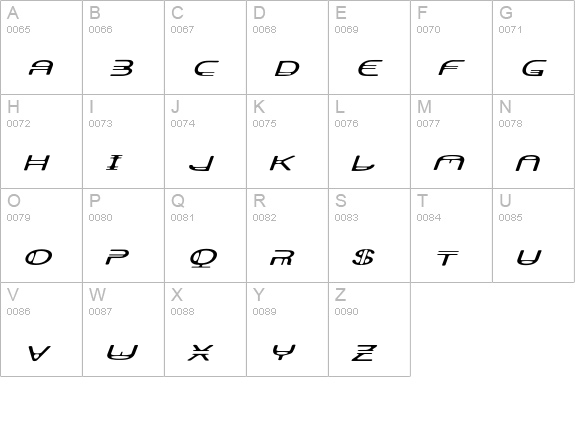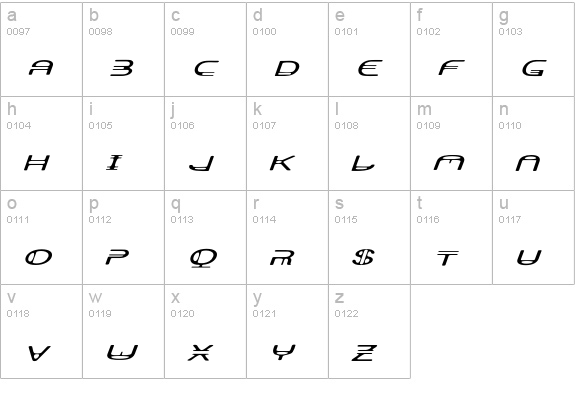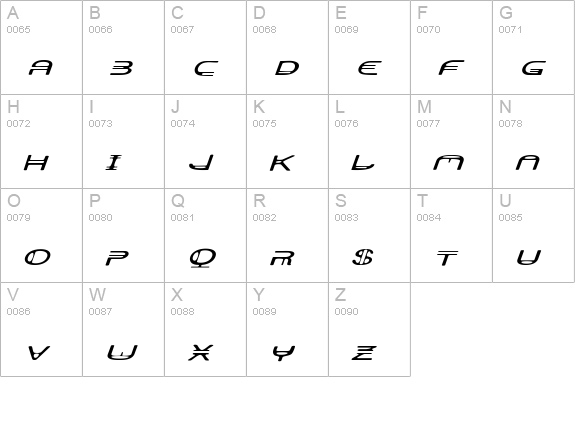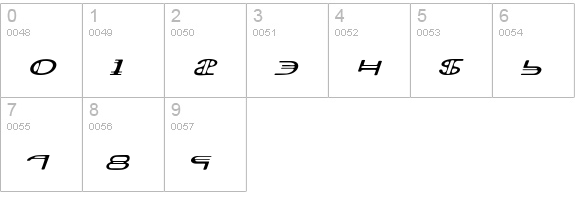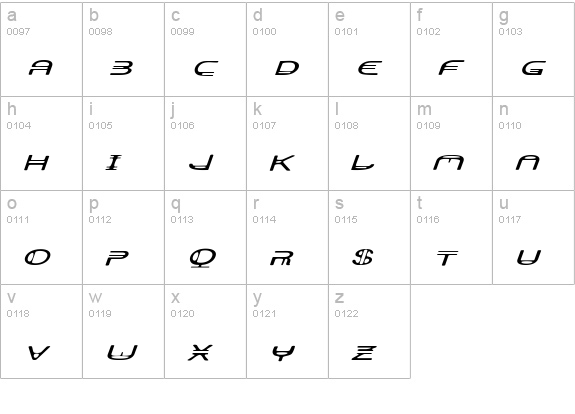
AeratorOblique Font Details
AeratorOblique font is a modern and stylish typeface designed to add a touch of elegance and sophistication to your projects. With its sleek and slanted design, AeratorOblique is perfect for creating eye-catching headlines, logos, and branding materials. The unique oblique style of this font adds a dynamic and contemporary feel to any design. What sets AeratorOblique font apart is not only its aesthetic appeal but also its versatility. Whether you're working on a website, poster, flyer, or any other design project, this font will bring a touch of class and professionalism to your work. The best part? AeratorOblique font is available for free download at FontsMarket.com. So go ahead and give your designs a fresh and modern look with this stunning font today!